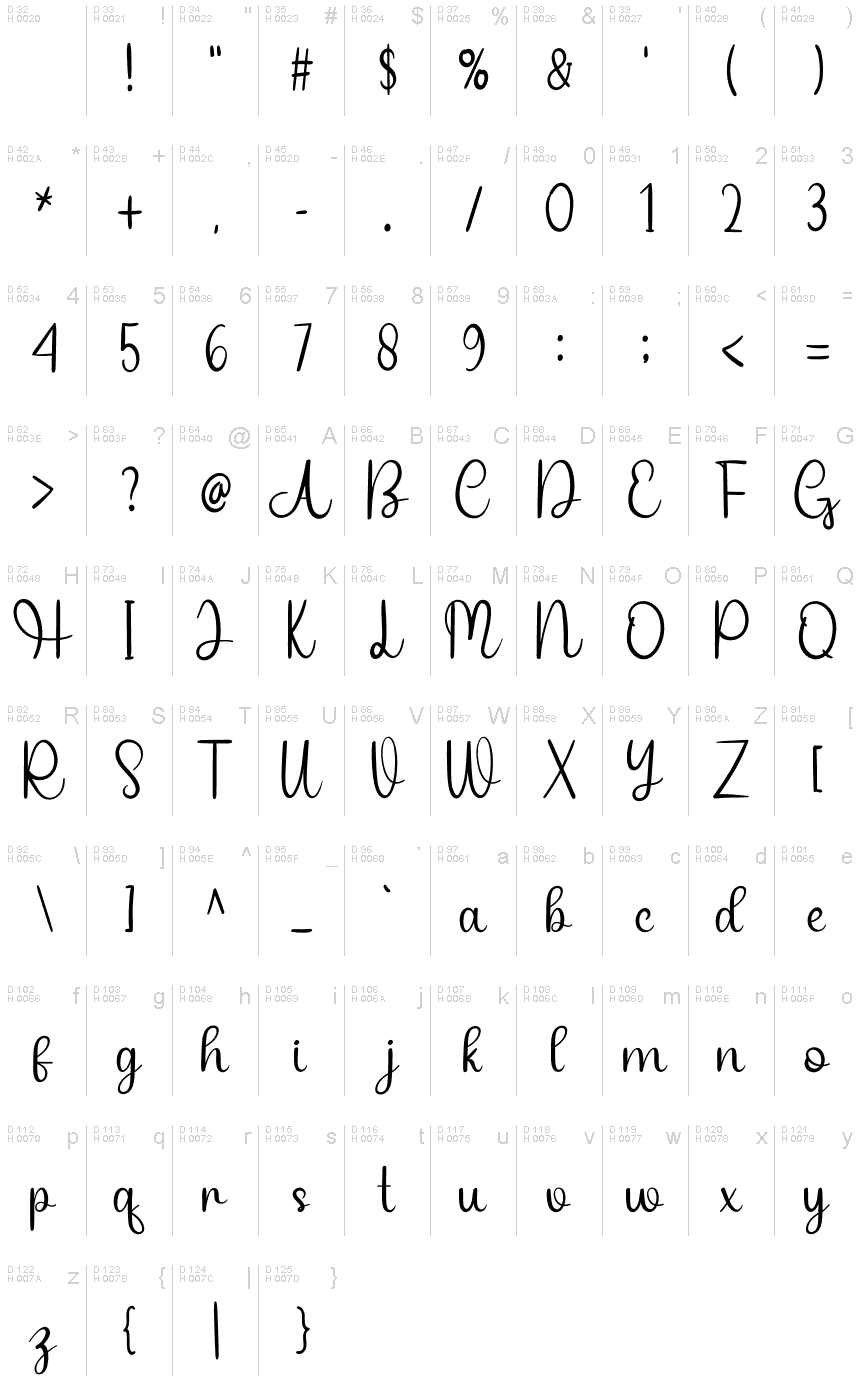
Writing Signature
Writing Signature by Belina Studio is a beautiful handwritten font that adds a personal touch to any project. Its semi-light weight and semi-condensed width make it easy to read and perfect for a variety of applications such as invitations, greeting cards, logos, and branding materials. This font style exudes elegance, charm, and sophistication while maintaining its unique handcrafted feel. Whether you're designing wedding invitations or creating social media graphics, Writing Signature will add a touch of personality to your projects. Try it out today for an unforgettable signature look!
the latest style letters are perfect for wall displays, wedding invitations, social media post logos, advertisements, product packaging, product designs, labels, photography, watermarks, invitations, stationery, and any project that requires taste handwriting.